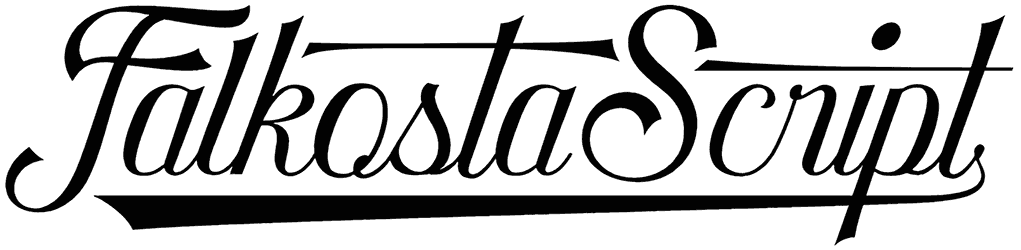
Falkosta Script Font
Take a look at this chic and classic font that can satisfy any taste. As an elegant calligraphy font, Falkosta Script could throw a confident vibe into your words. Even without a cover of numerals, this script font will…
Take a look at this chic and classic font that can satisfy any taste. As an elegant calligraphy font, Falkosta Script could throw a confident vibe into your words. Even without a cover of numerals, this script font will remain an apt choice for a lot of layouts, namely invitation cards, branding, book covers, and so on.
Example: Love_Write # or ¤ after any letter to make a swash version.
Example: Me# & You¤Use multiple underscores for longer swashes.
Example: Superman_______